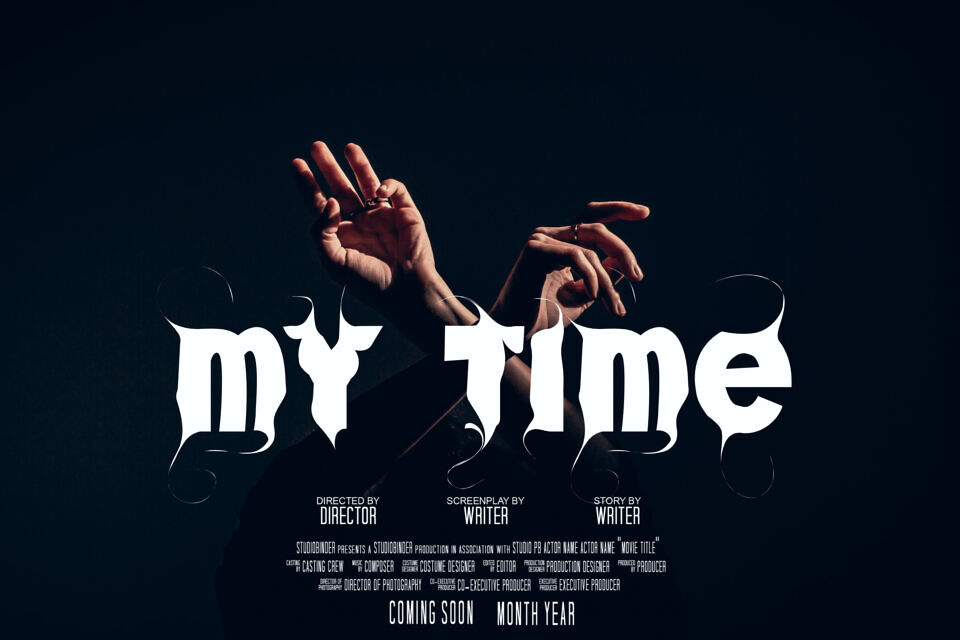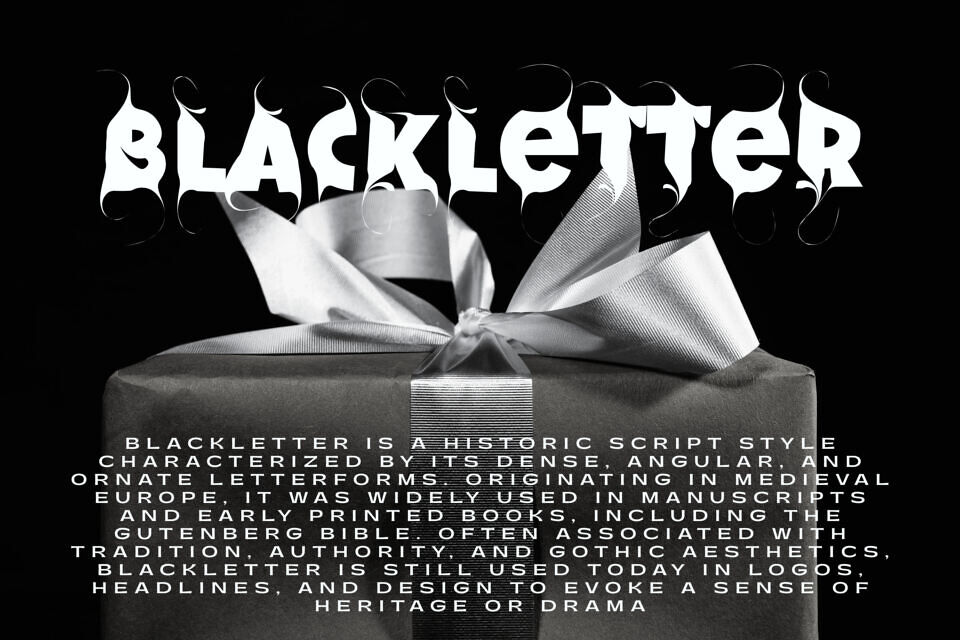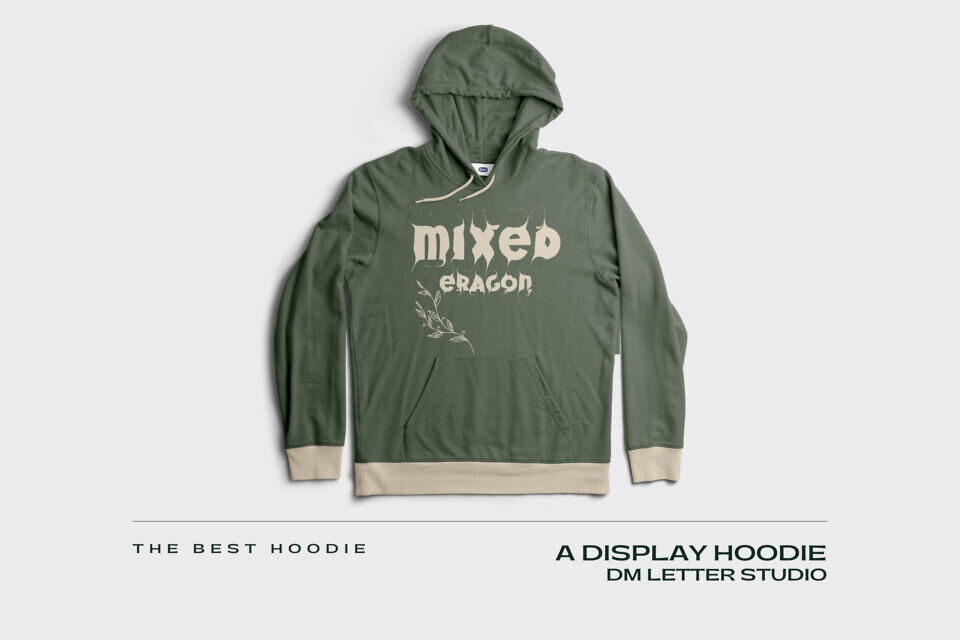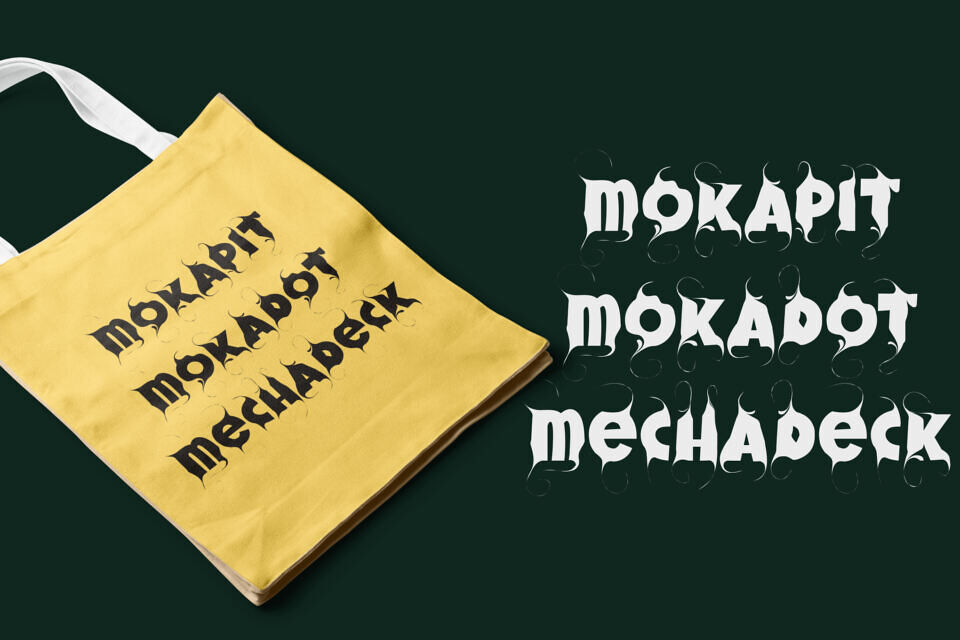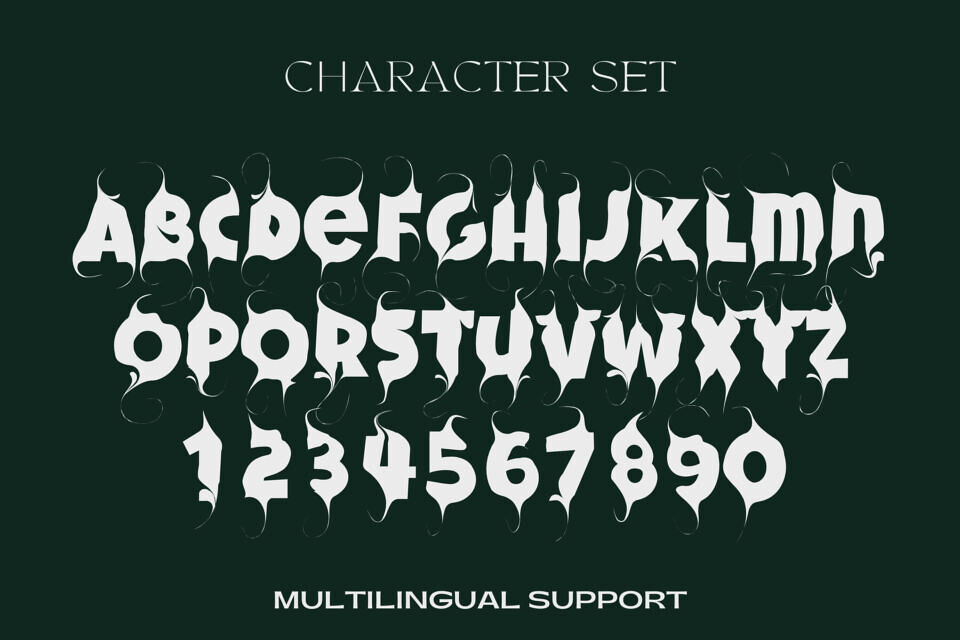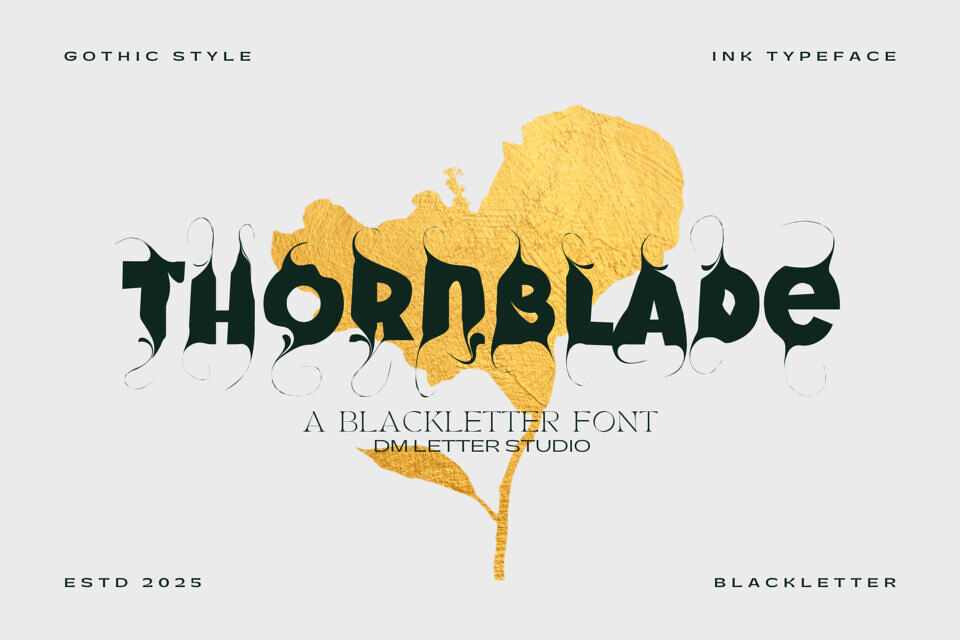
Thornblade Font
Thornblade is a striking gothic-style ink typeface that evokes the drama and intensity of medieval script with a modern flair. Inspired by old-world calligraphy and ink-drenched letterforms, this font delivers a bold presence perfect for dark fantasy themes, metal band logos, tattoo art, horror titles, game design, and vintage gothic posters.
Its sharp edges and inky textures add a gritty, rebellious vibe to any creative work.